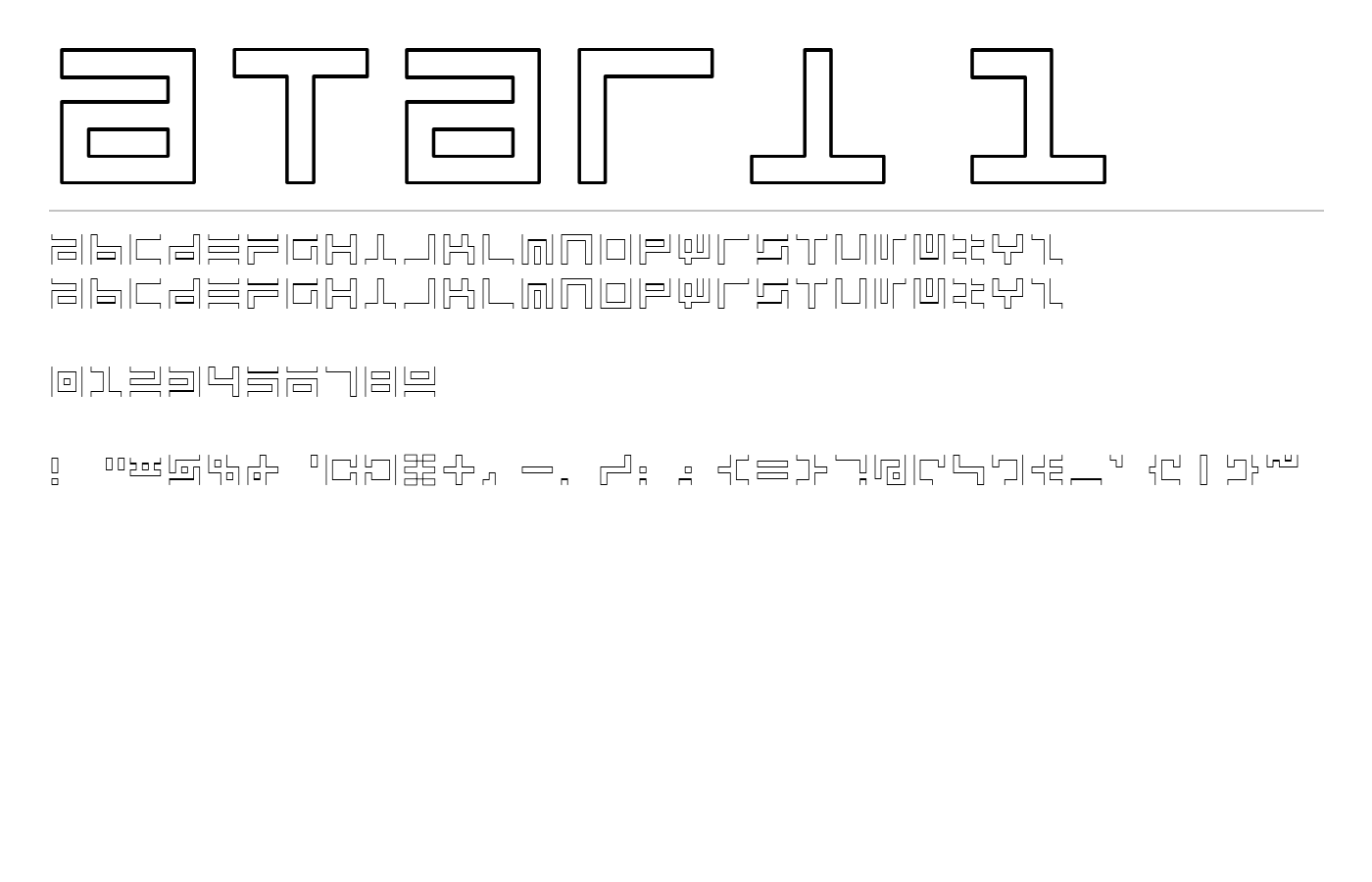
Atari 1 is a highly geometric, tech-inspired sans serif font characterized by its thin, light strokes and unusual, blocky letterforms that evoke a futuristic digital or arcade aesthetic. Its monospaced, square-edged shapes and minimal contrast give it a modern, mechanical feel, making it ideal for designs that want to capture a retro gaming or sci-fi vibe. This font works best for logos, posters, and digital media where a bold, unconventional style is needed to stand out.
Atari 1 Font